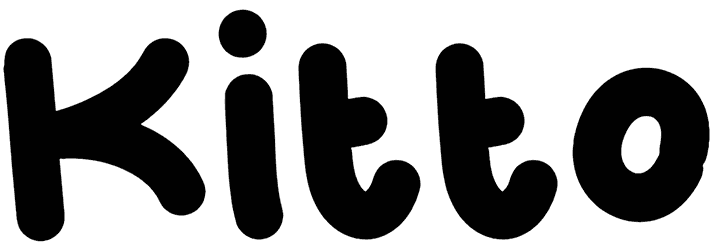
Kitto Font
There are several occasions when you need a well-designed comic font to entertain your audience, and the Kitto font can respond to your needs. This fancy font’s letters are bold and soft-edged with a semi-rounded shape; thus, they have a friendly and childish vibe.
Besides, the Kitto font displays playfulness and may be helpful in different cases such as animation, book and magazine covers, and posters, precisely where you want to attract children.